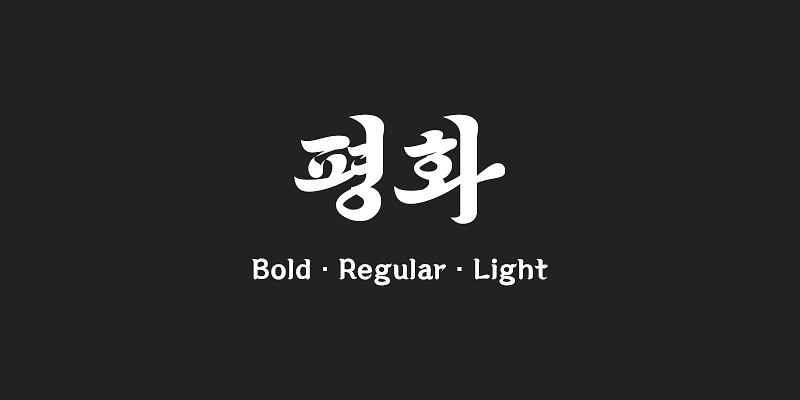
210 Pyeonghwa Font Free Download is a soft, peaceful Korean typeface that embodies harmony, simplicity, and calm expression. The word “Pyeonghwa” (평화) means “peace” in Korean, and the font lives up to that name with gentle curves, balanced strokes, and an overall tranquil visual tone. It’s an excellent choice for wellness branding, educational content, children’s books, inspirational quotes, and cultural projects that aim to convey clarity and serenity.
210 Pyeonghwa Font Free Download features Hangul characters with a slightly rounded, handwritten feel, along with clean Latin support for bilingual or international use. Its well-spaced, easy-to-read letterforms work beautifully in both display and medium-length text settings.
This typeface shines in designs that value sincerity and mindfulness—whether for print, digital, or identity systems.
Gentle, thoughtful, and approachable—210 Pyeonghwa Font brings peaceful energy and heartfelt simplicity to your design.